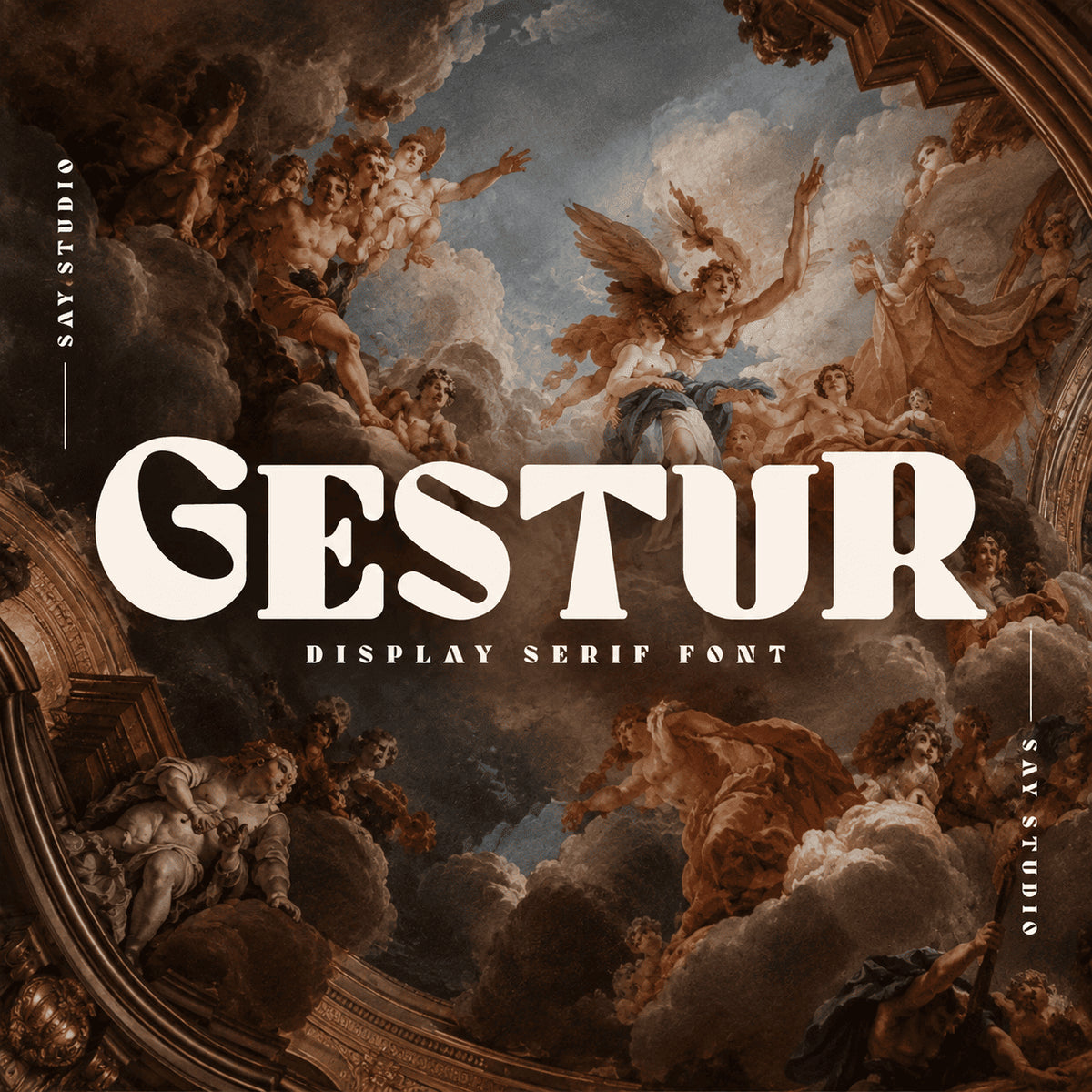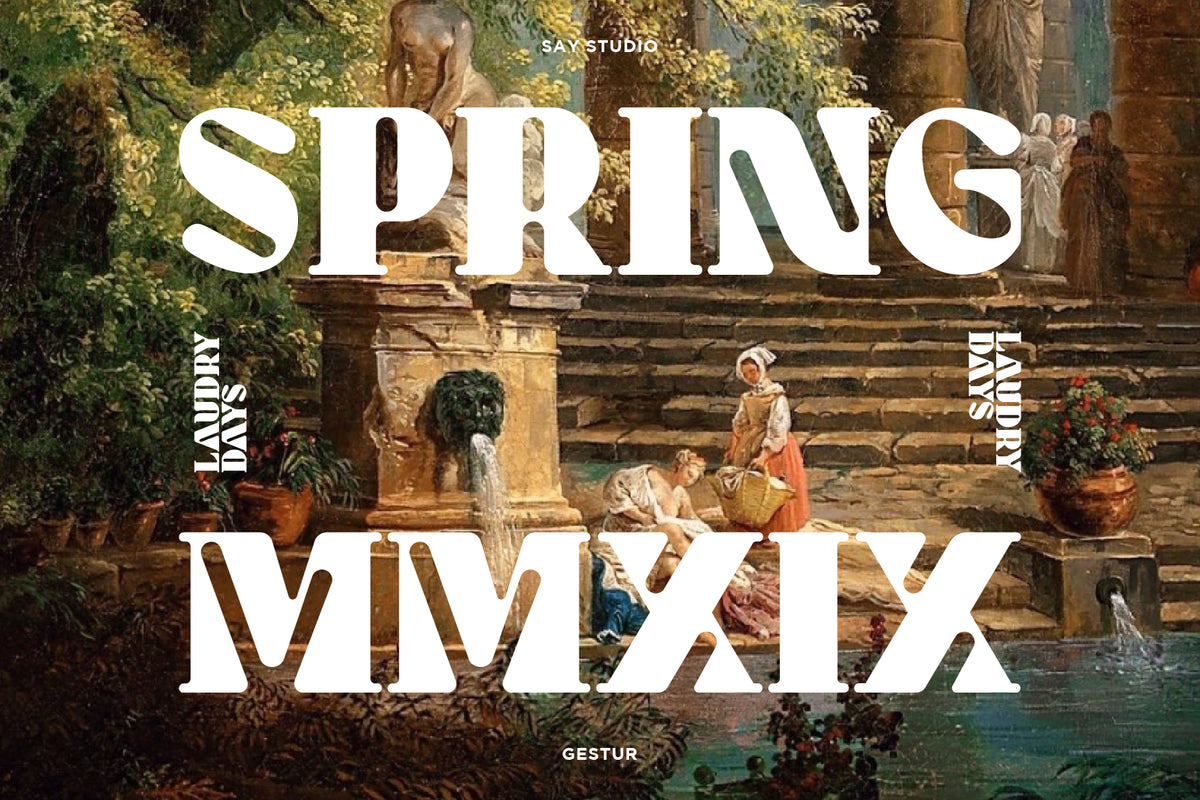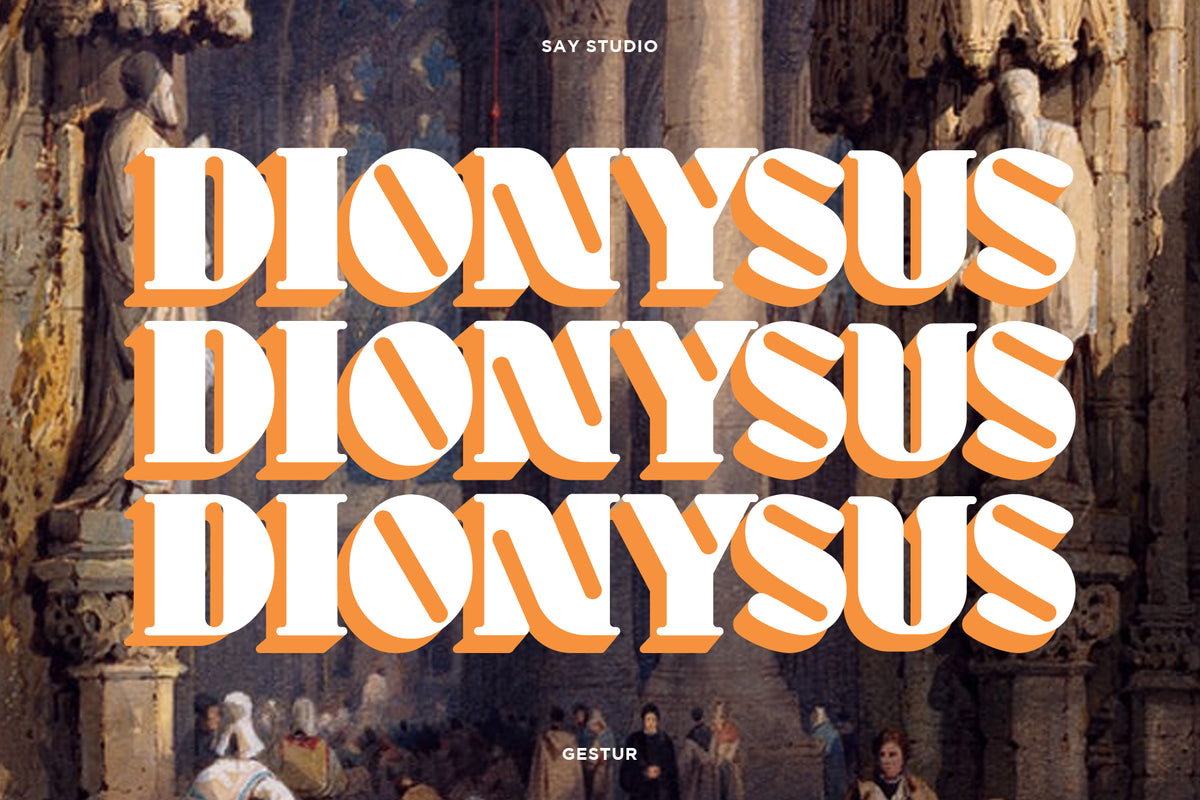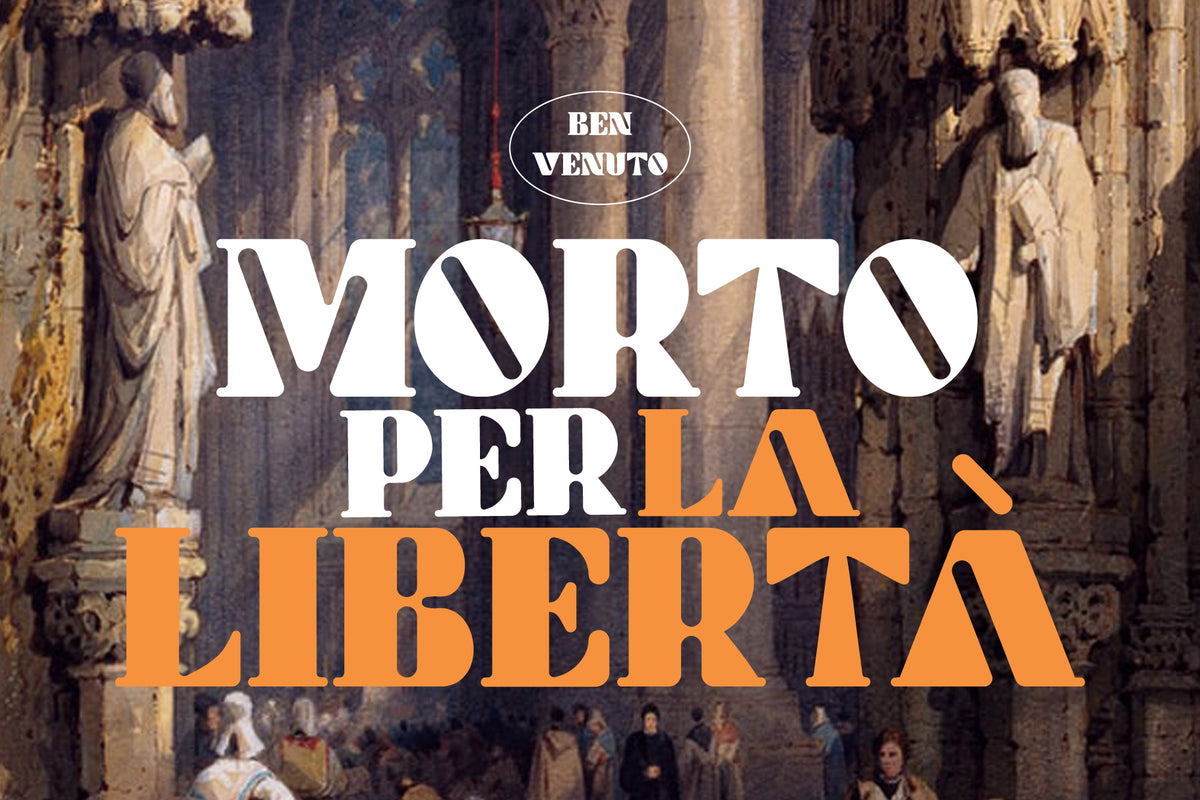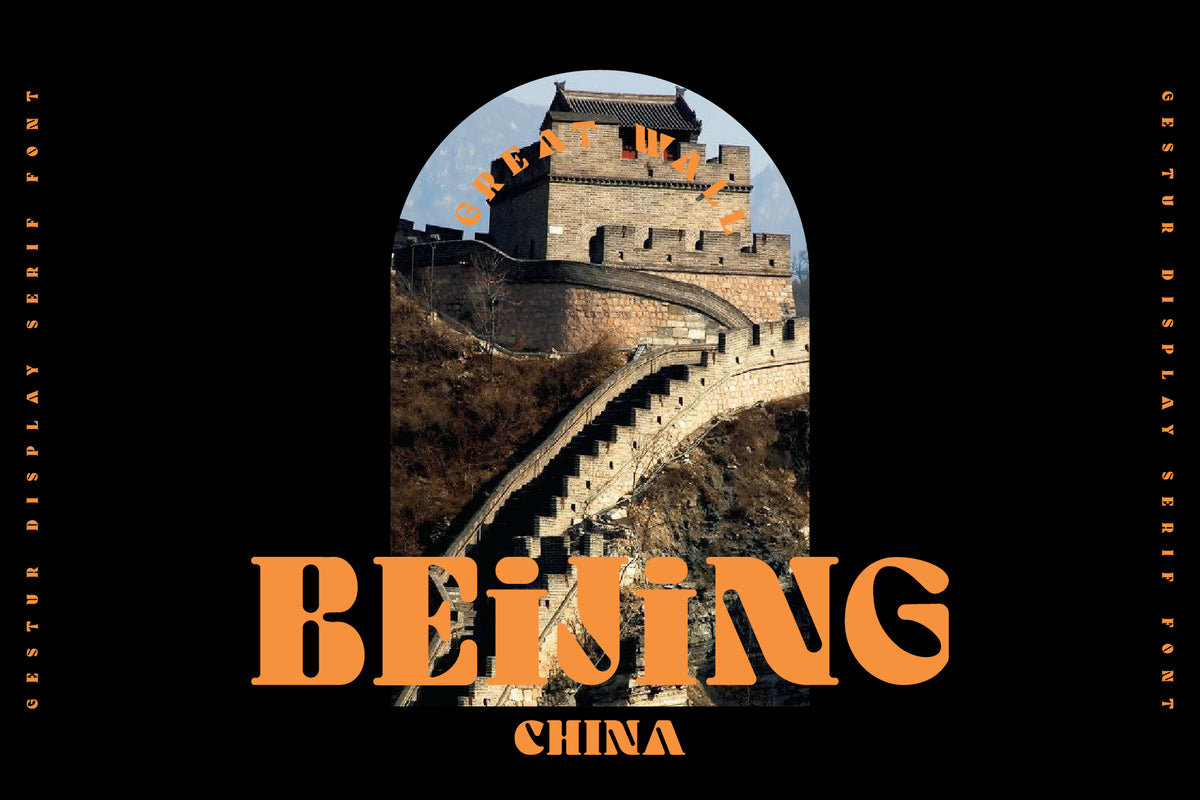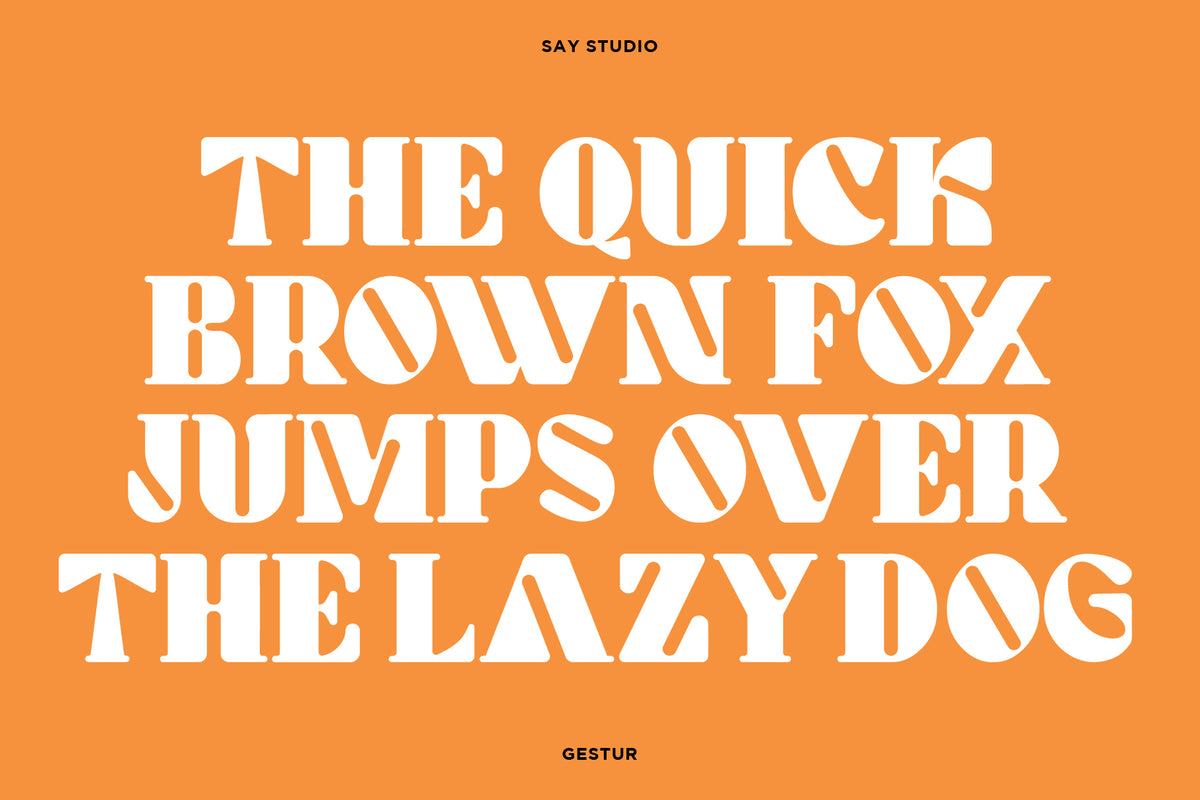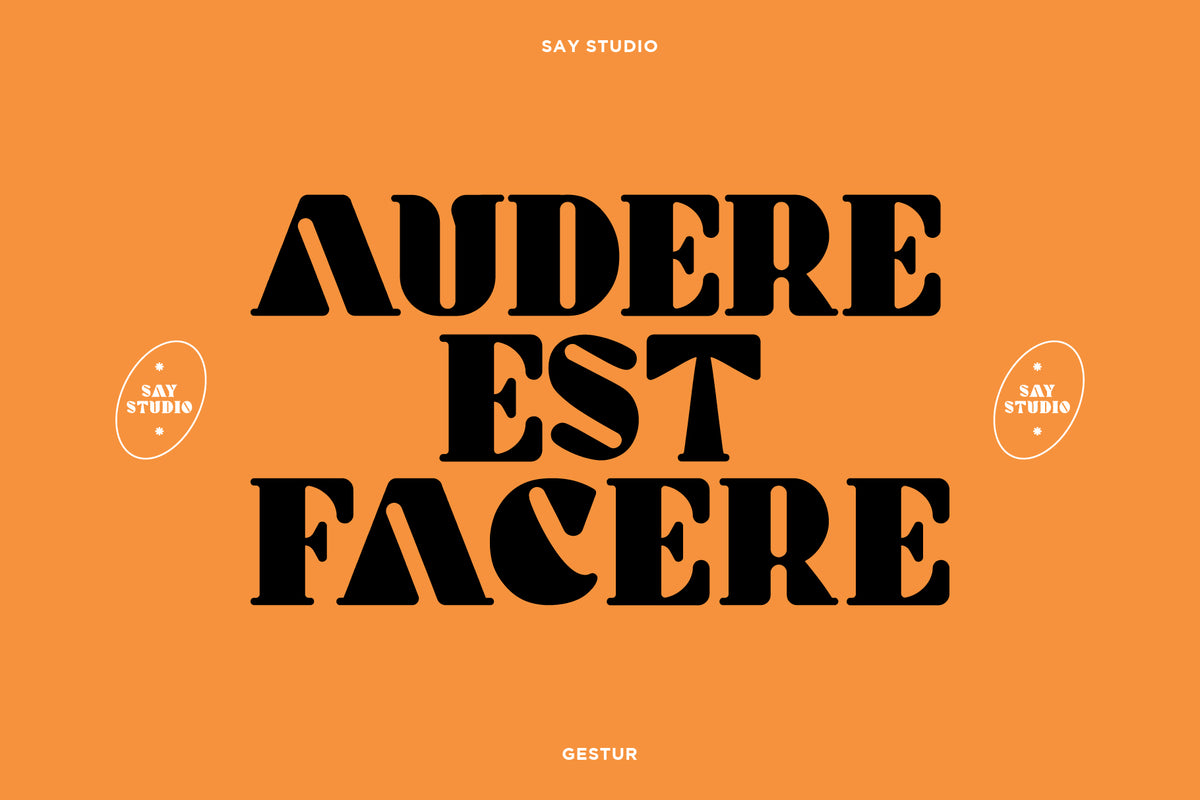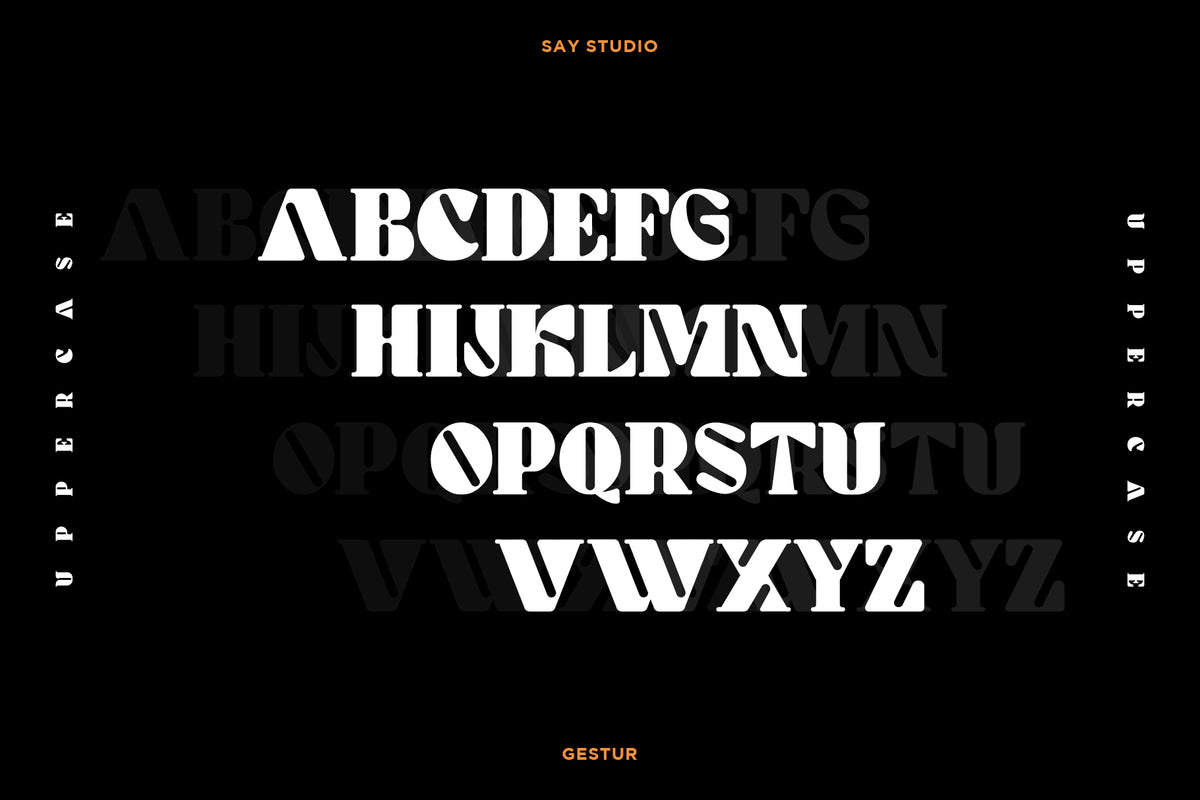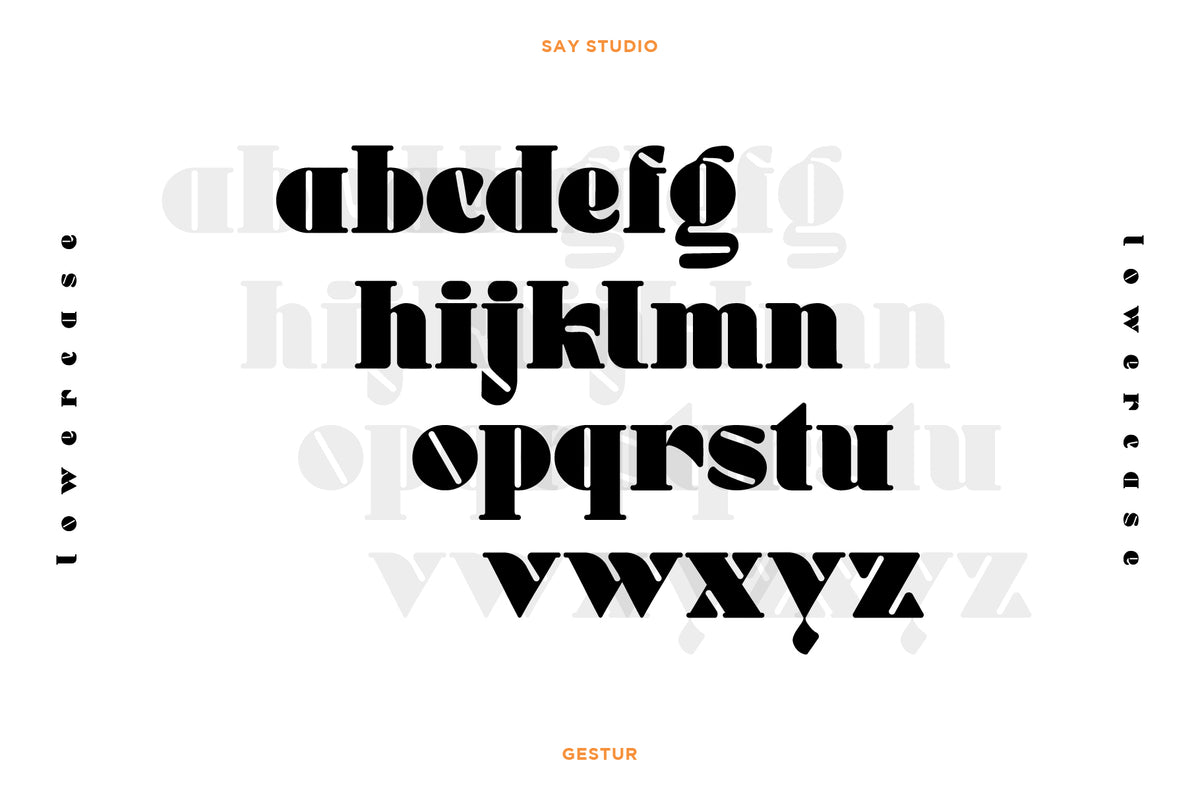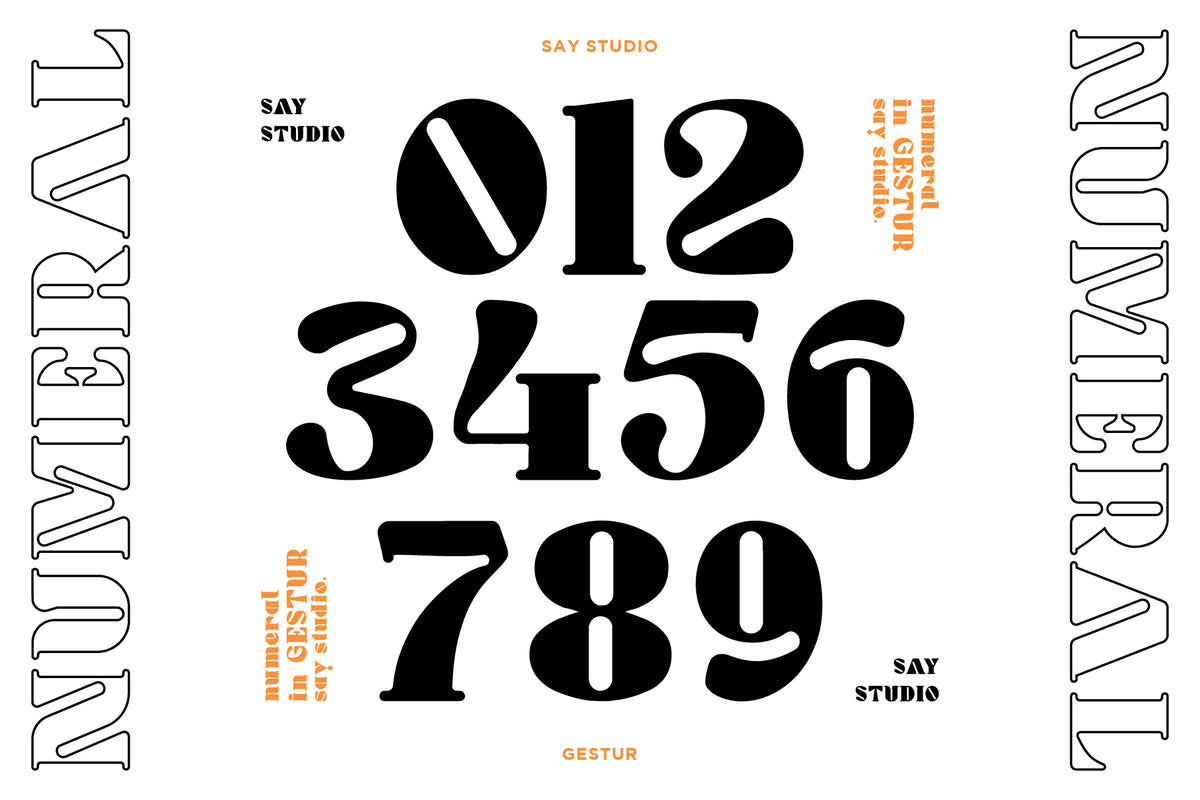
Gestur - Bold Classic Serif Font
Gestur is a bold display serif typeface crafted for designs that demand character, presence, and a touch of artistic drama. With its heavy letterforms, distinctive curves, rounded terminals, and expressive proportions, Gestur blends vintage typography with a contemporary editorial aesthetic. The result is a striking typeface that instantly gives headlines and brand names a strong visual identity.
Designed to command attention, Gestur is ideal for editorial design, fashion branding, magazine covers, posters, art direction, luxury packaging, restaurant branding, cultural projects, advertising, and creative identities. Its bold silhouette works beautifully at large sizes, making it especially effective for impactful headlines, logotypes, campaign titles, and statement typography.
From an elegant fashion campaign to an art-inspired poster or a distinctive brand identity, Gestur brings a confident and memorable personality to every composition. Its dramatic forms pair naturally with photography, classical artwork, contemporary layouts, and premium branding, giving designers a versatile display serif for projects that need something beyond a conventional typeface.
Gestur is a bold display serif font featuring heavy letterforms, rounded terminals, and vintage-inspired proportions. It includes uppercase and lowercase characters, numbers, symbols, punctuation, and multilingual support, available in OTF, TTF, and WOFF formats.